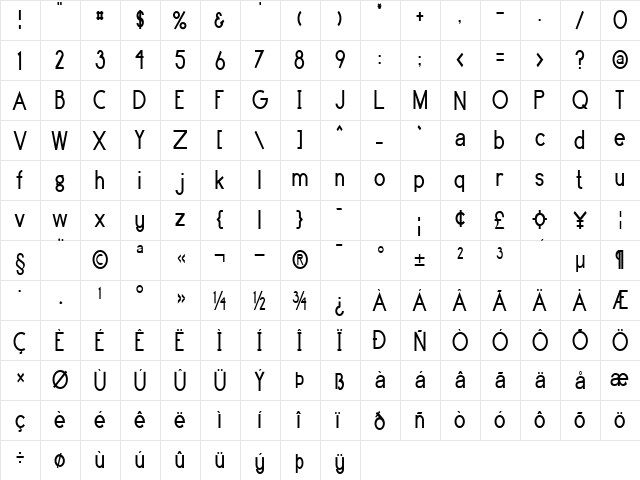
Highball-Condensed Normal
Design Context for Highball-Condensed Typeface
Highball-Condensed takes a measured approach to typography — its balanced proportions and neutral character make it a reliable workhorse for both digital and print work. The condensed width makes it efficient for tight spaces without sacrificing legibility.